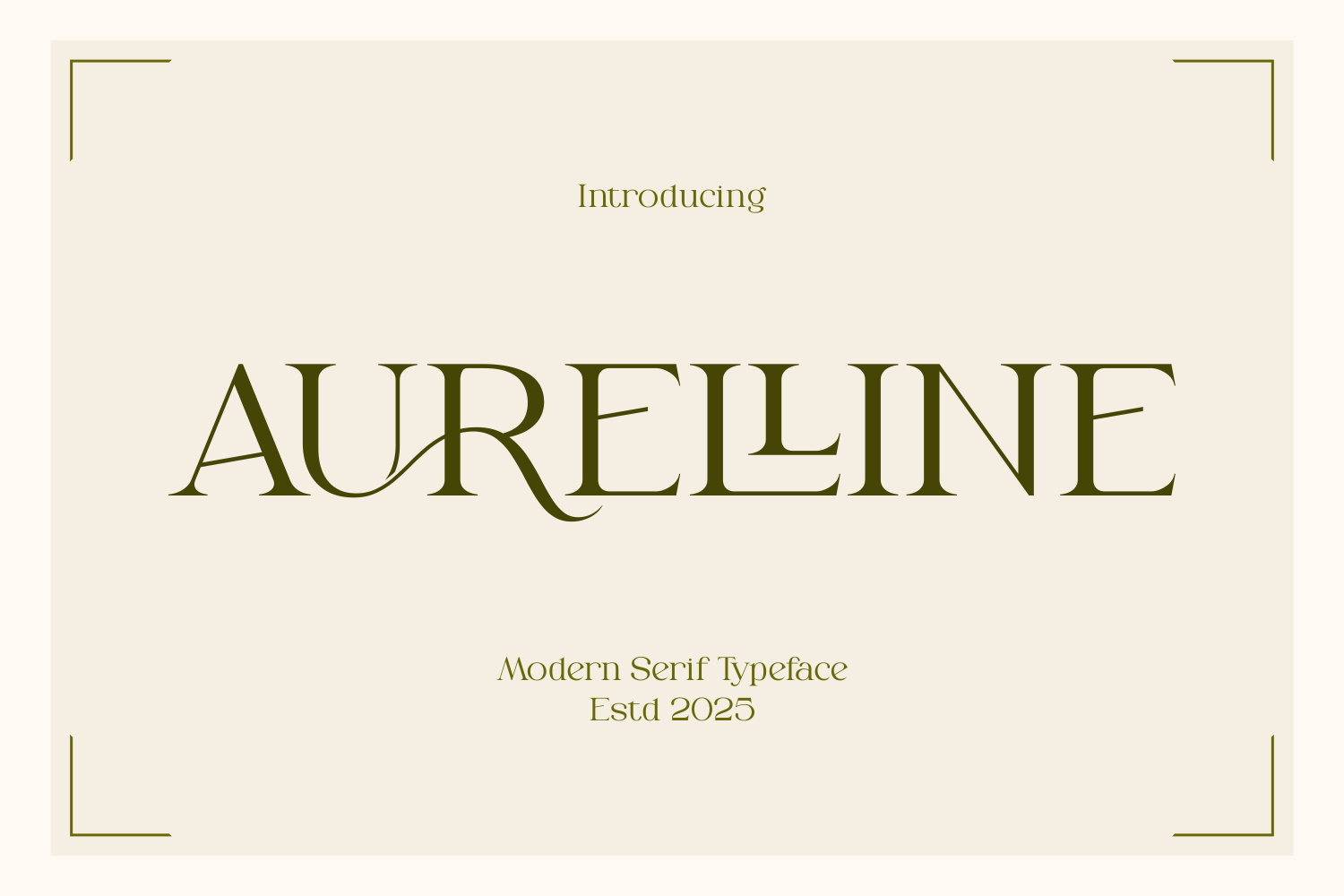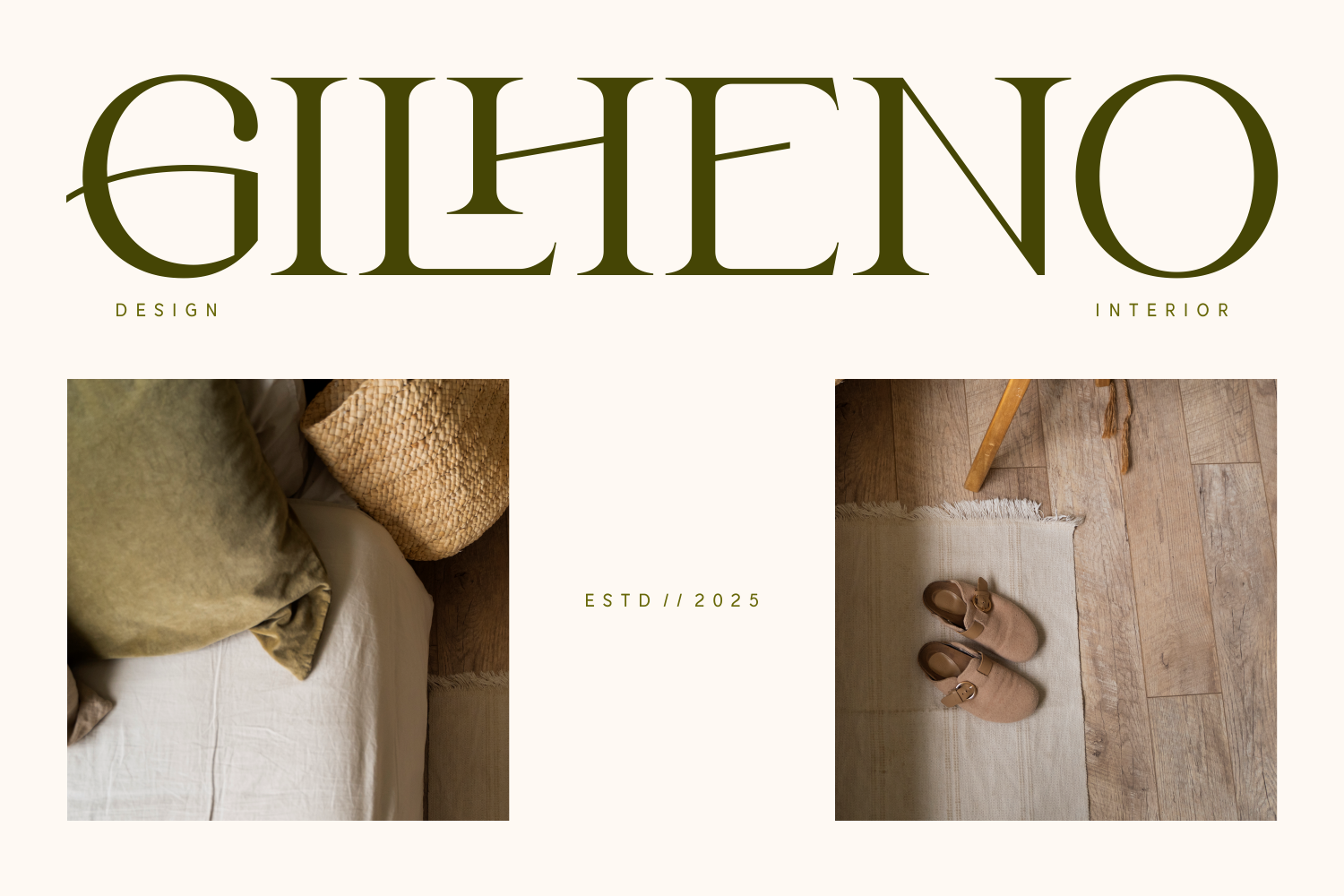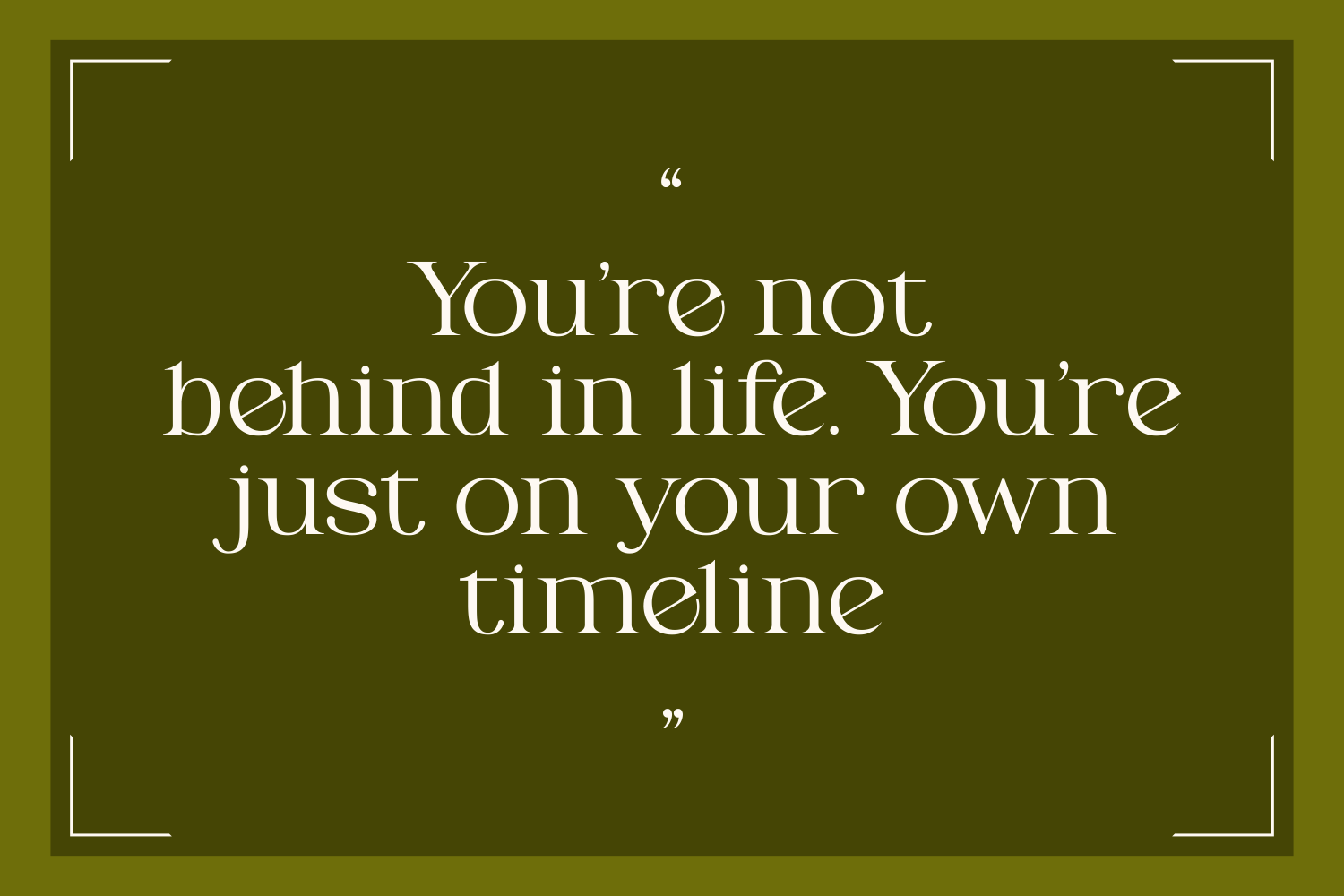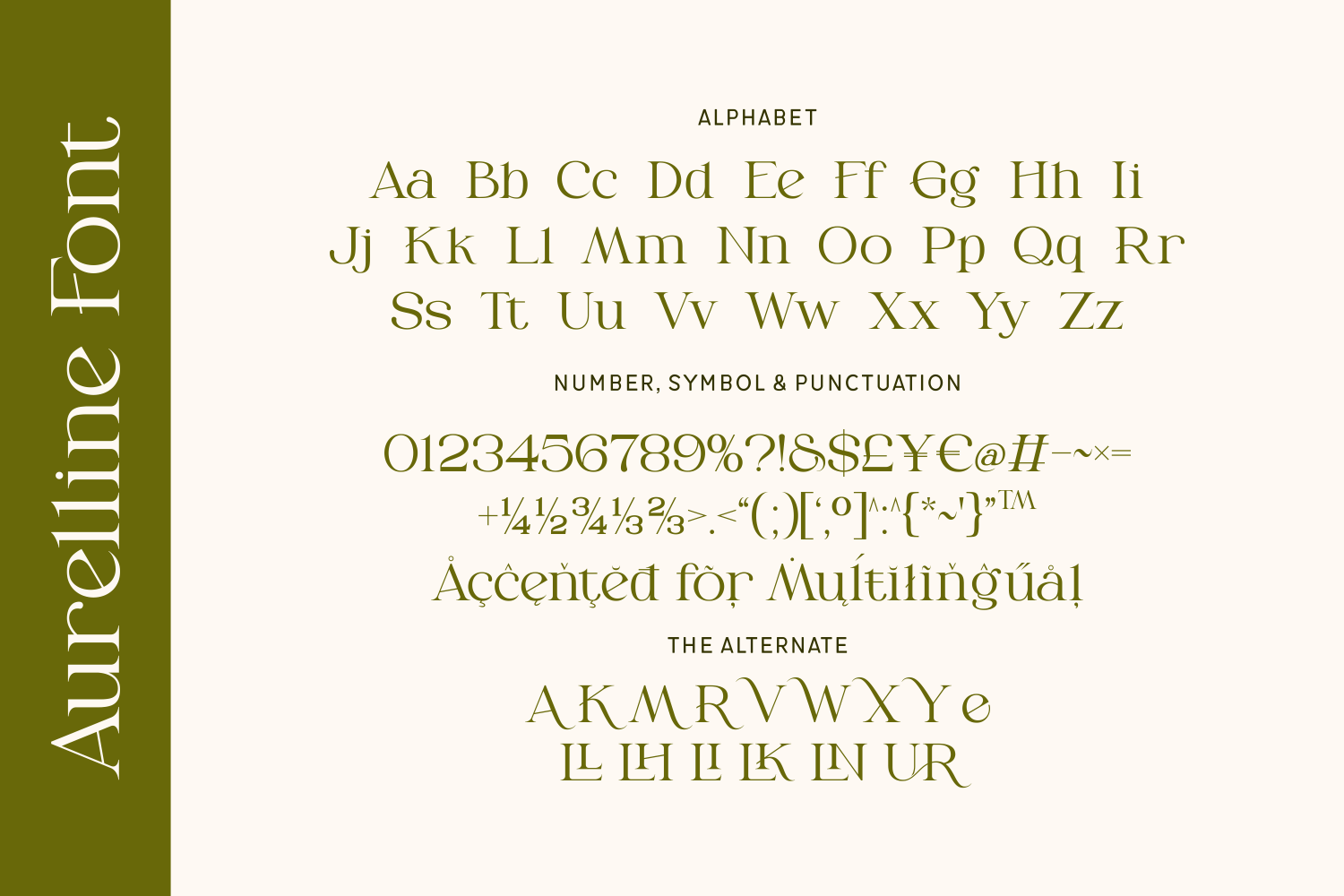
Aurelline is a stylish, modern serif typeface with graceful curves and sleek ligatures that bring elegance and clarity to your design. Its refined letterforms and subtle flair make it perfect for branding, fashion editorials, wedding stationery, and high-end packaging. With a balanced blend of classic charm and contemporary minimalism, Aurelline offers timeless sophistication in every character.